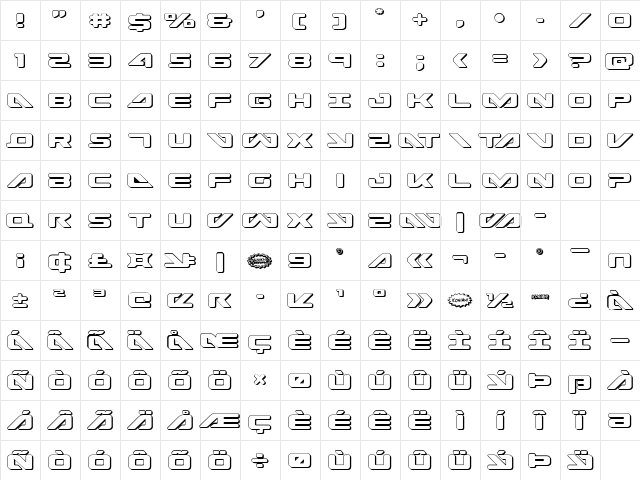
Sea-Dog 3D Regular
Design Context for Sea-Dog 3D
Sea-Dog 3D is a composed and adaptable typeface that performs quietly and consistently across a wide range of design contexts.